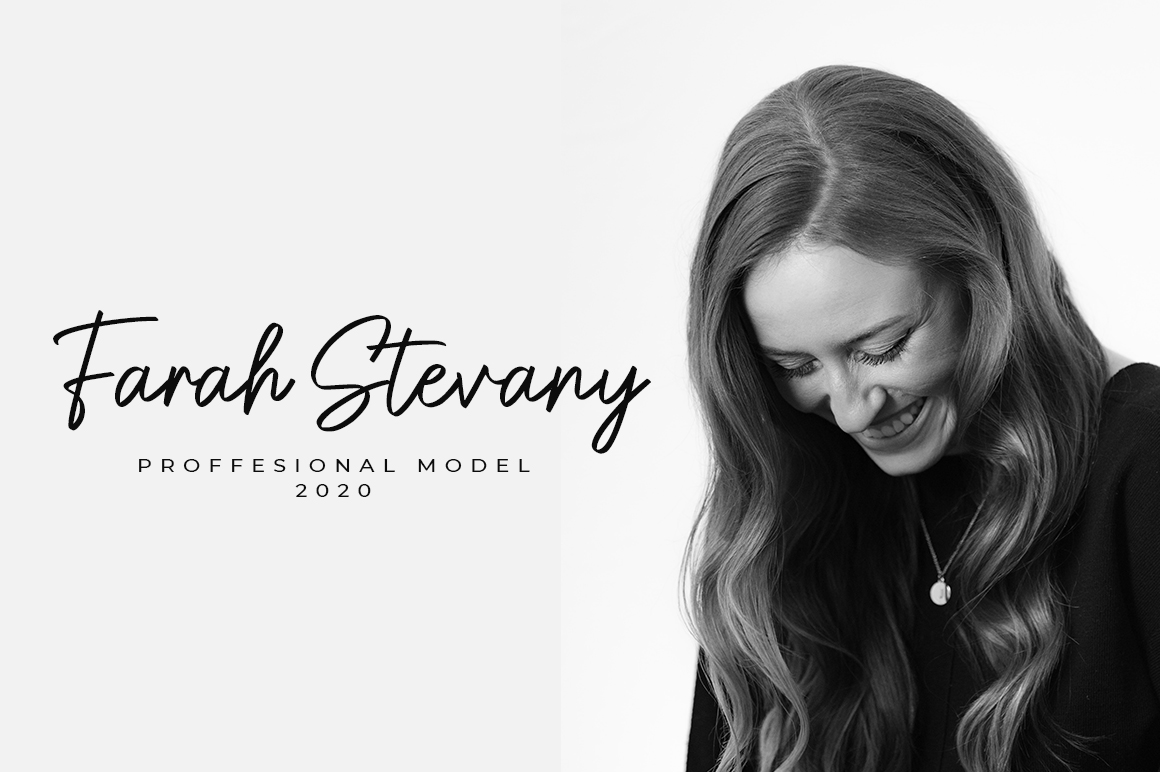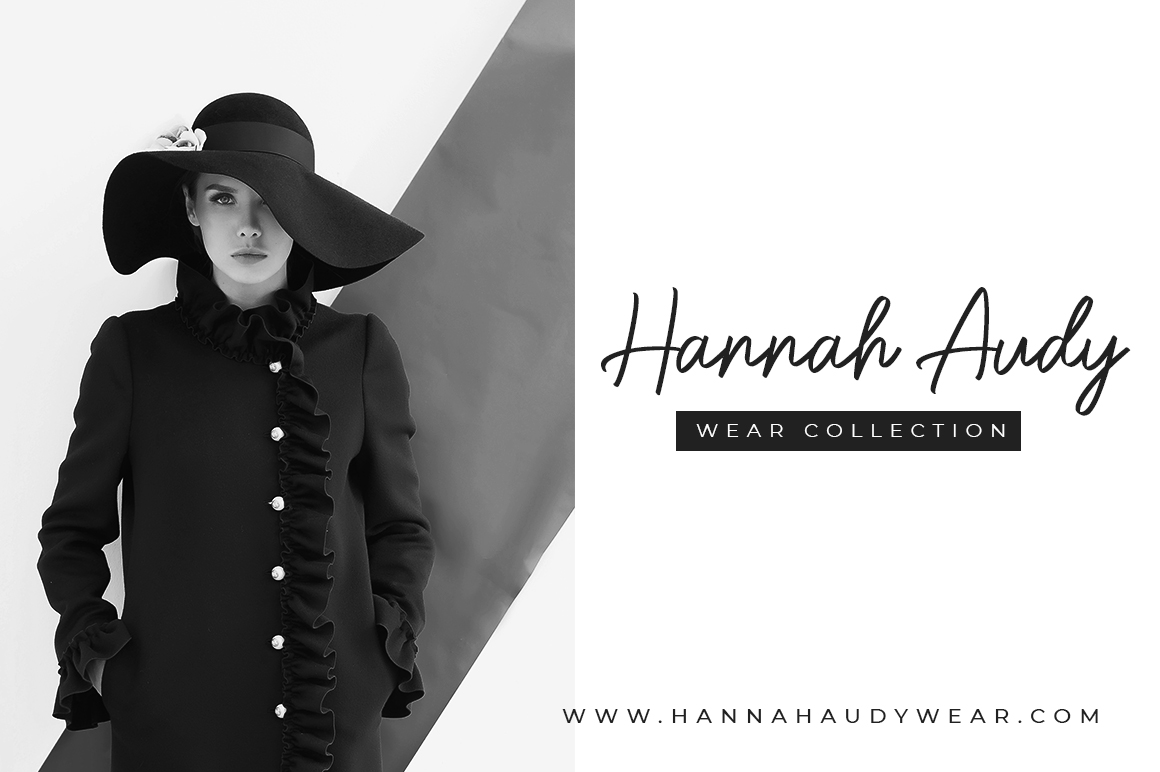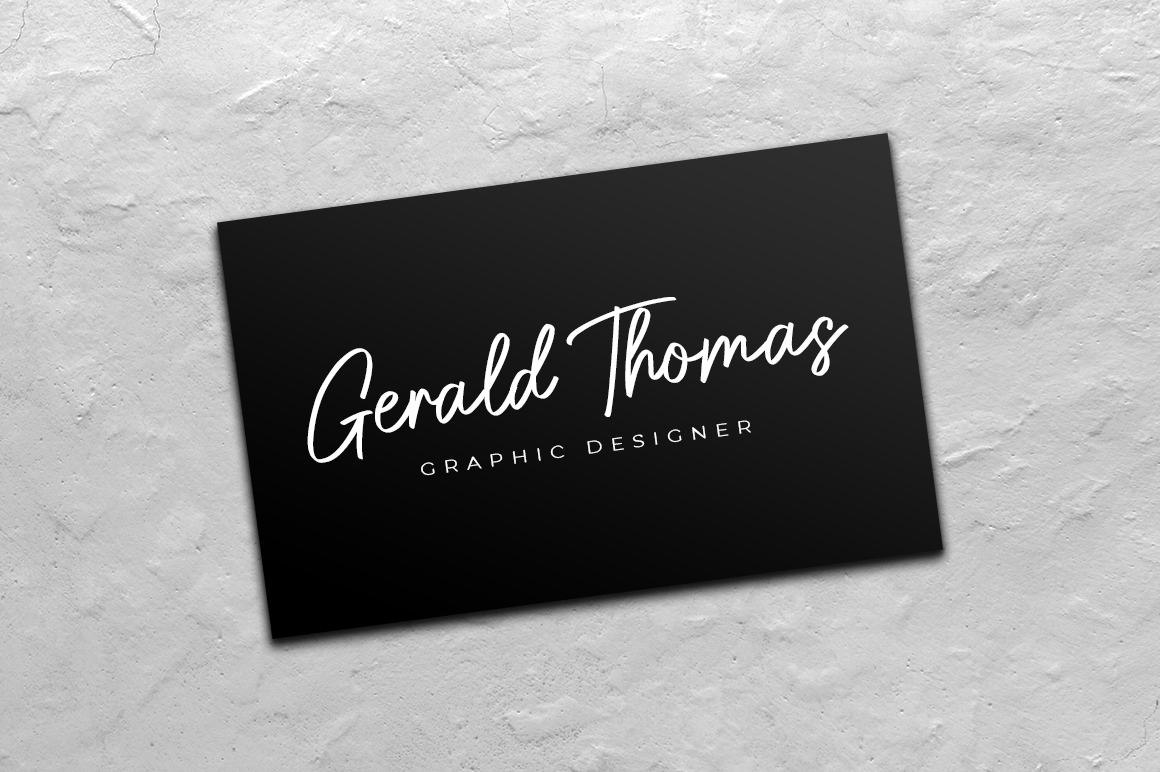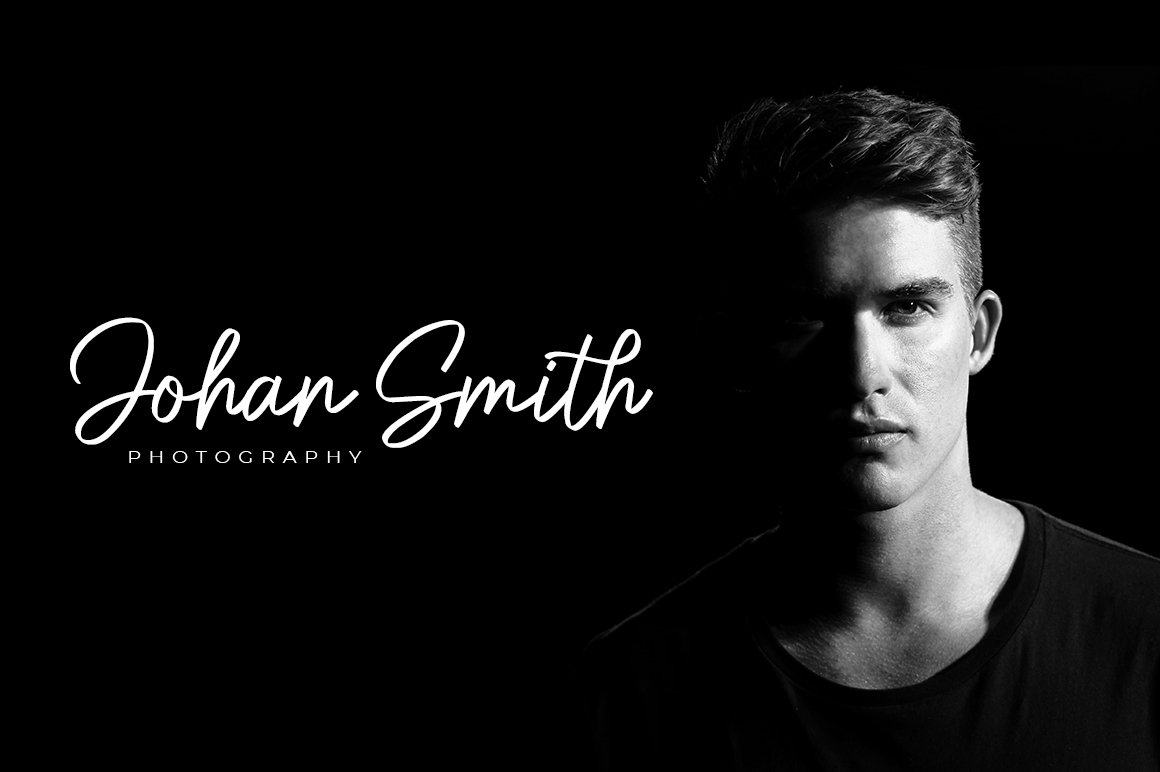
Gatteway Signature Free Font
Gatteway Signature Free Font is a stunning script with a bold vibe. Get inspired by its cool feel. This free typeface was designed by a talented Bluestype Studio. If you like it don’t forget to check out the full version.